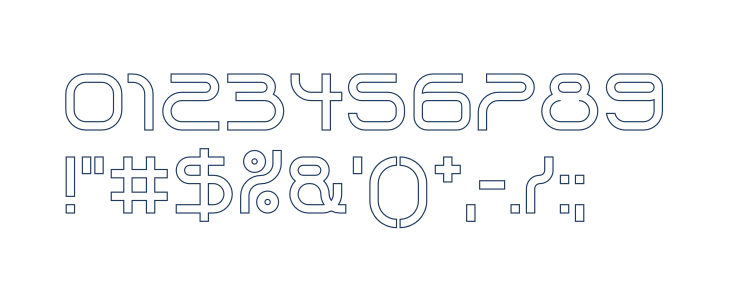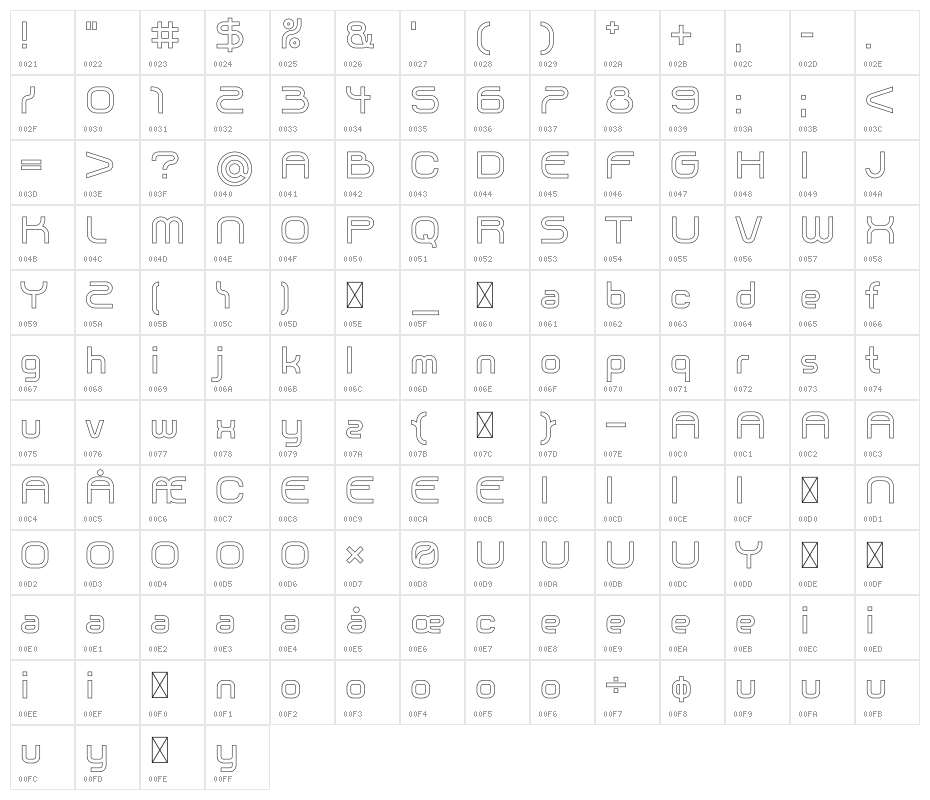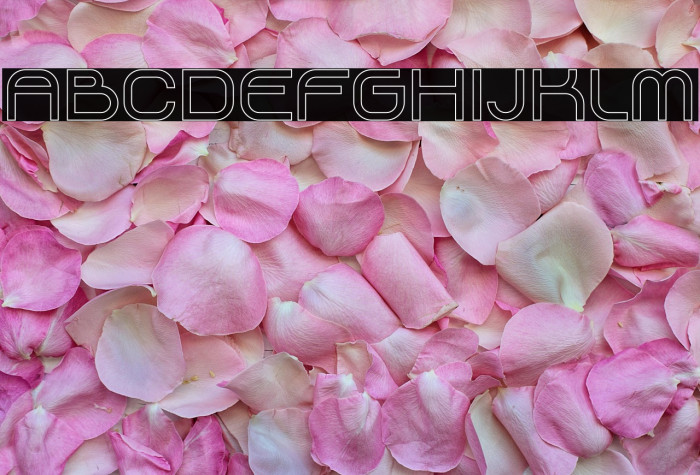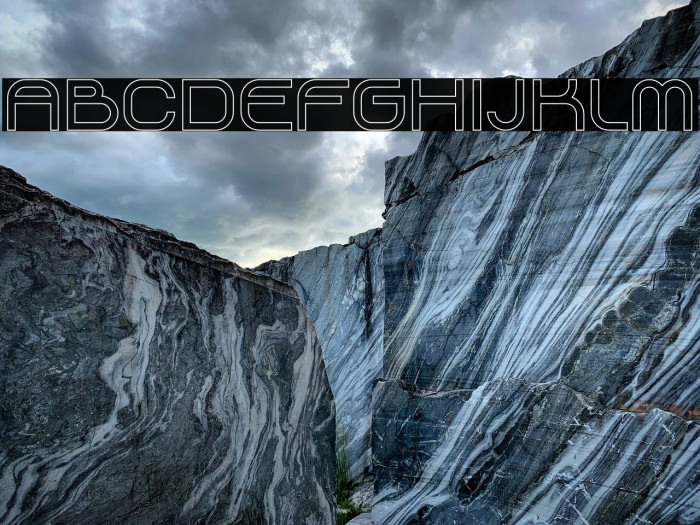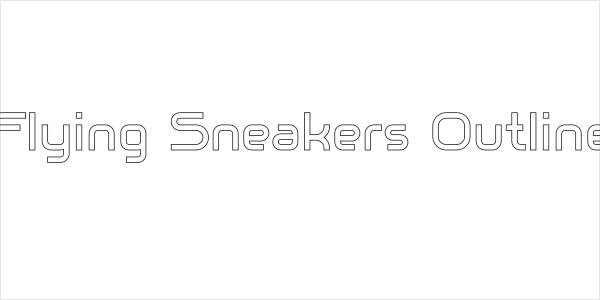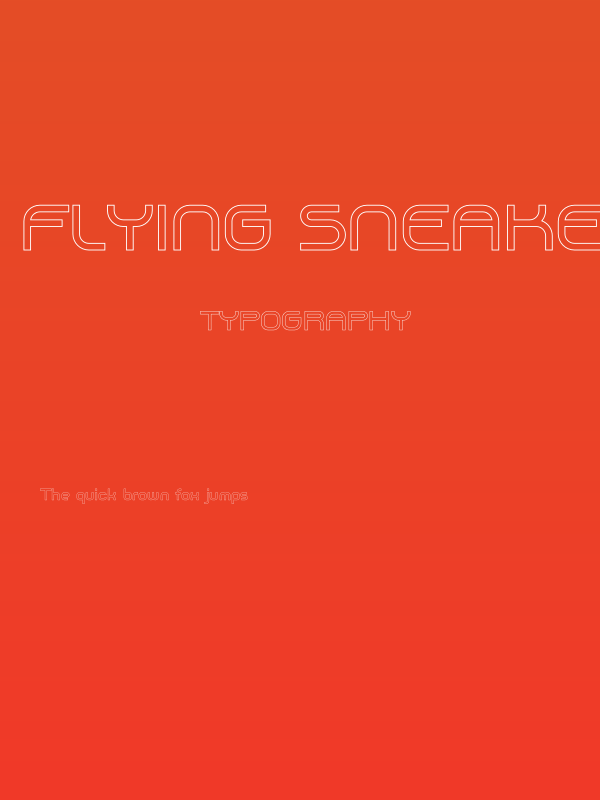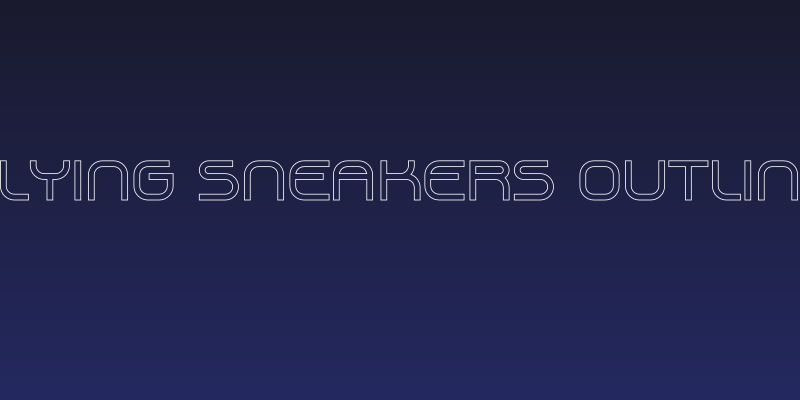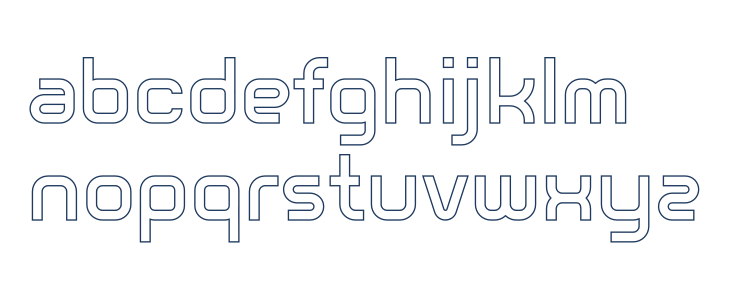
Flying Sneakers Outline Font
Flying Sneakers Outline Description
This font features a modern, geometric design with an outline style that gives it a futuristic and sleek appearance. The characters are constructed with consistent line thickness, creating a uniform look across all letters and numbers. The uppercase and lowercase letters maintain a similar height, enhancing the font's cohesive aesthetic. The numerals and special characters are designed to match the overall style, ensuring a seamless integration in any text. Its clean lines and open spaces make it highly legible, even at smaller sizes, while the outline effect adds a unique visual interest that can capture attention in various design contexts.